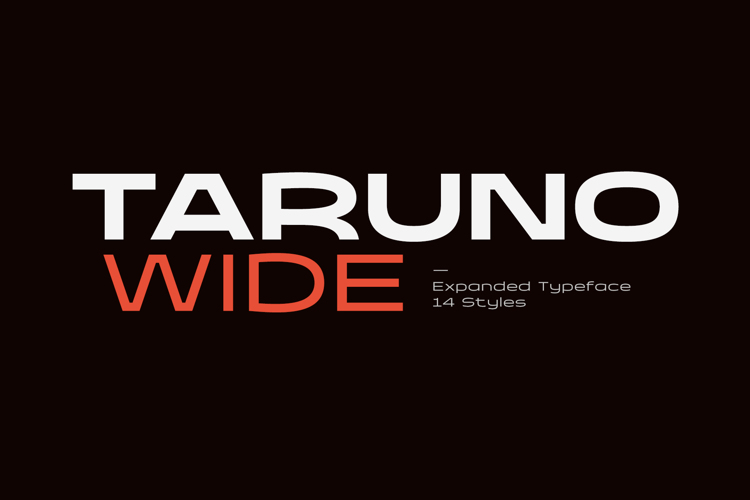
Taruno Wide Font
About Taruno Wide Font
Taruno Wide is an expanded display font that effortlessly evokes an aggressive yet elegant vibe with a modern twist. Choosing this font is a stellar solution for classy design projects that demand to leave a strong and professional impression.